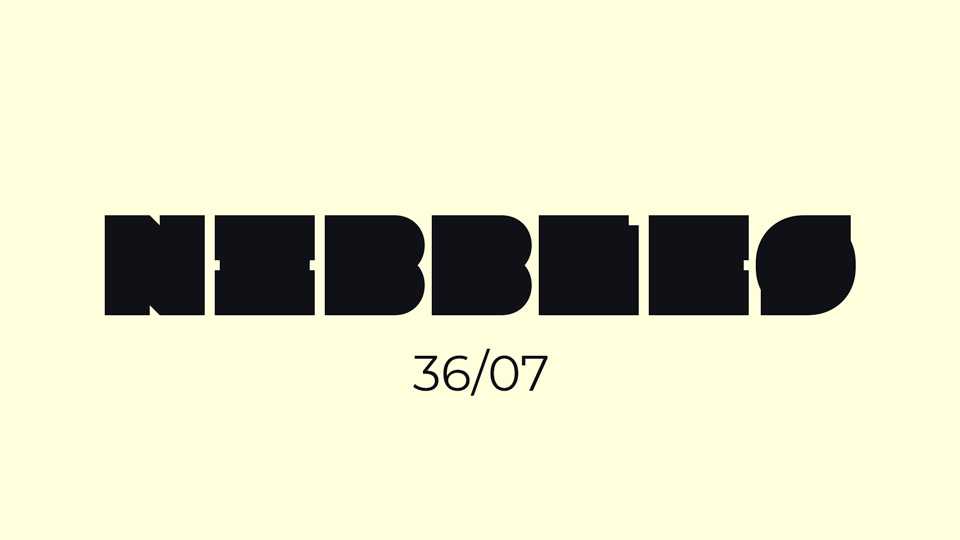
Download Nibbles font, an ultra heavy display typeface inspired by Milton Glaser’s famous Baby Teeth typeface, with tiny bites taken out of each letter, making them just legible enough to work as a display font.
Designer: Justin Penner